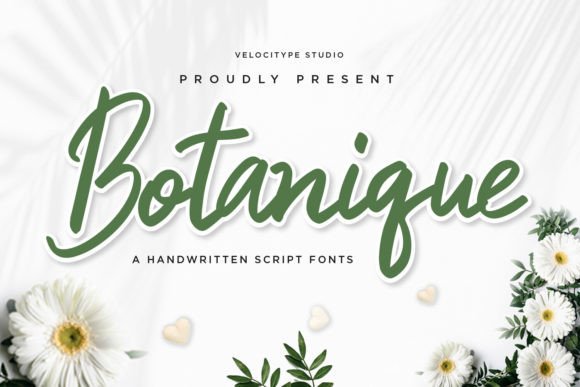
Botanique Font: Elevate Your Designs with a Touch of Elegance
In the world of typography, fonts play a crucial role in conveying the tone and personality of a brand or design. Among the numerous font styles available, handwritten script fonts have gained immense popularity for their unique and personal touch. One such font that has caught the attention of designers and businesses alike is the Botanique Font. In this article, we’ll explore the features, benefits, and uses of Botanique – a beautiful handwritten script font that can elevate your designs to a high level.
What is Botanique Font?
Botanique is a stunning handwritten script font designed to add a touch of elegance and sophistication to various projects. Its flowing strokes, beautiful letterforms, and classic feel make it an ideal choice for designers seeking to create visually appealing designs. Whether you’re working on branding, promotional ads, quotes, merchandise, social media, or special events, Botanique Font can help you achieve a high-end look.
Benefits of Using Botanique Font
So, what makes Botanique Font a popular choice among designers? Here are some benefits of using this beautiful handwritten script font:
- Unique and Personal Touch: Botanique Font adds a personal touch to your designs, making them stand out from the crowd.
- Elegant and Sophisticated: The font’s classic feel and flowing strokes evoke a sense of elegance and sophistication, perfect for high-end brands and designs.
- Versatile: Botanique Font is suitable for a wide range of projects, from branding and advertising to social media and merchandise.
- Easy to Read: The font’s clear and legible letterforms ensure that your message is conveyed effectively.
Uses of Botanique Font
Botanique Font is a versatile font that can be used in various projects, including:
- Branding: Create a lasting impression with Botanique Font, perfect for logos, business cards, and letterheads.
- Promotional Ads: Add a touch of elegance to your advertising campaigns with this beautiful handwritten script font.
- Quote Design: Use Botanique Font to create inspiring and visually appealing quotes for social media, posters, or flyers.
- Merchandise: Elevate your merchandise designs, such as t-shirts, mugs, or tote bags, with the elegant feel of Botanique Font.
- Social Media: Enhance your social media presence with Botanique Font, perfect for creating engaging posts, stories, and graphics.
- Special Events: Make your event branding, invitations, and promotional materials stand out with the unique and elegant feel of Botanique Font.
Tips for Using Botanique Font Effectively
To get the most out of Botanique Font, here are some tips to keep in mind:
- Pair with Other Fonts: Combine Botanique Font with other fonts to create a unique and visually appealing typography.
- Adjust Font Size and Color: Experiment with different font sizes and colors to add emphasis and create visual hierarchy.
- Use it Sparingly: Use Botanique Font sparingly to avoid overwhelming your design, and make sure it aligns with your brand’s tone and personality.
Botanique Font vs. Other Handwritten Script Fonts
While there are many handwritten script fonts available, Botanique Font stands out for its unique features and benefits. Here’s a comparison with other popular handwritten script fonts:
| Font | Unique Features | Benefits |
|---|---|---|
| Botanique Font | Elegant and sophisticated, flowing strokes, classic feel | Unique and personal touch, versatile, easy to read |
| Other Font 1 | Modern and edgy, bold strokes, contemporary feel | Perfect for bold designs, attention-grabbing |
| Other Font 2 | Playful and whimsical, curly strokes, fun feel | Ideal for creative projects, adds a touch of personality |
In conclusion, Botanique Font is a beautiful handwritten script font that can elevate your designs to a high level. Its elegant and sophisticated feel, unique features, and versatility make it an ideal choice for various projects. By using Botanique Font effectively, you can add a personal touch to your designs, convey your brand’s tone and personality, and create visually appealing graphics that leave a lasting impression.